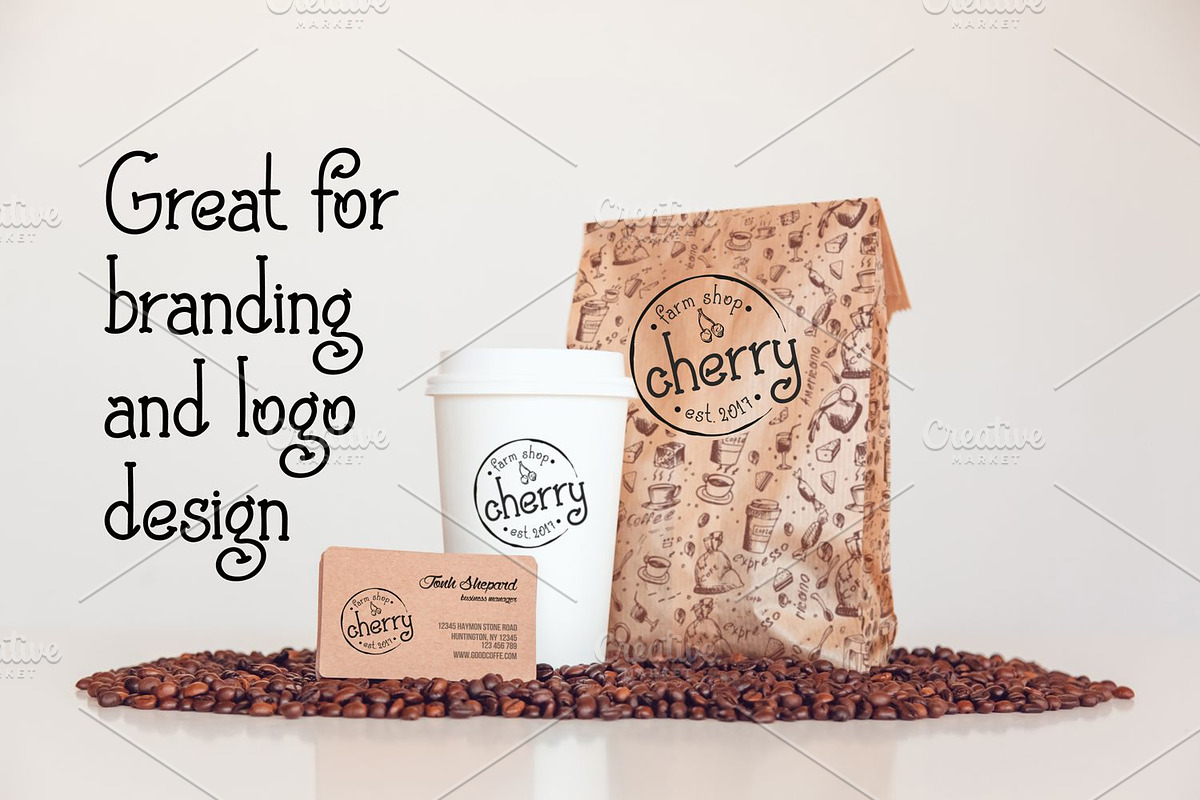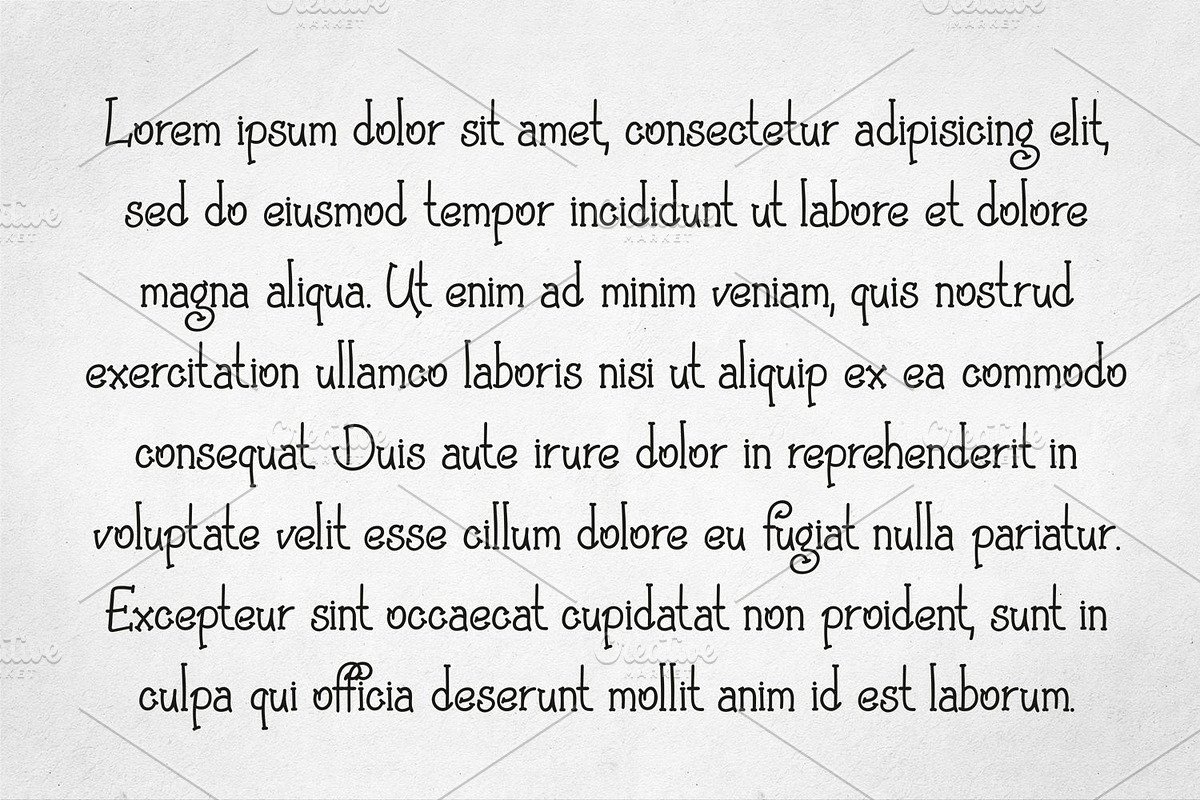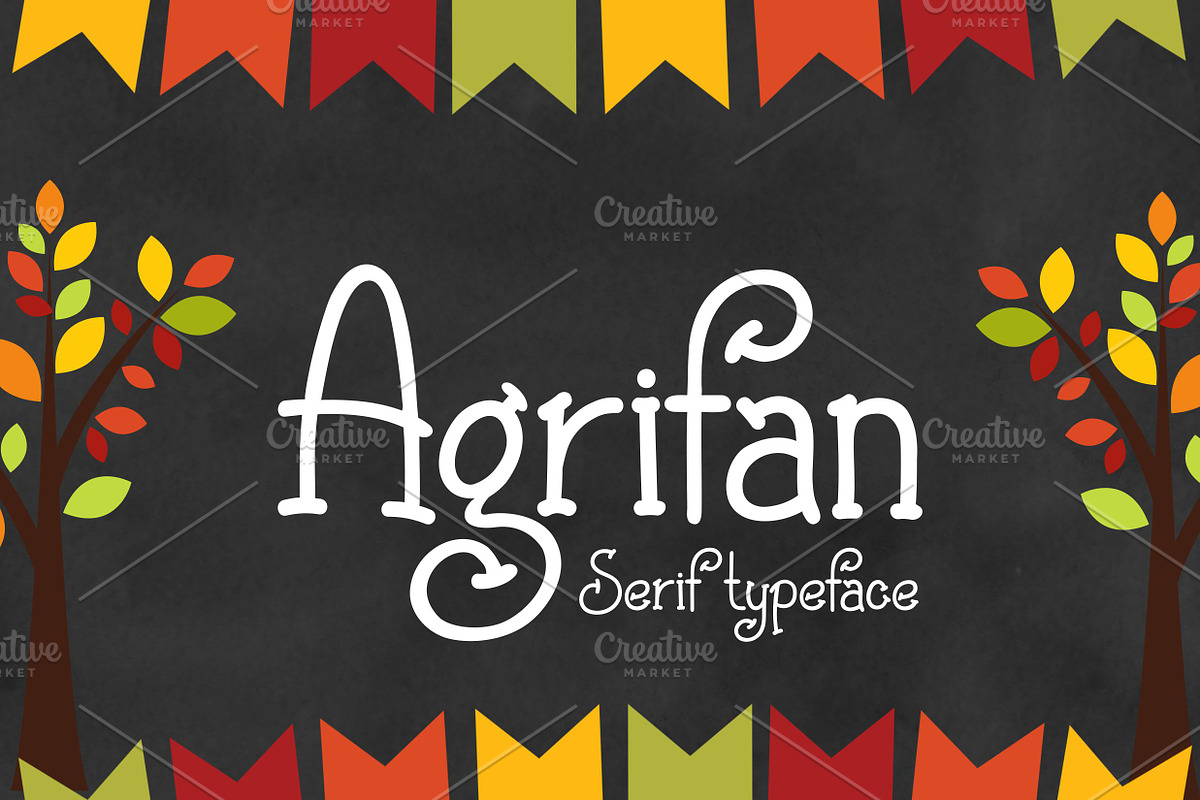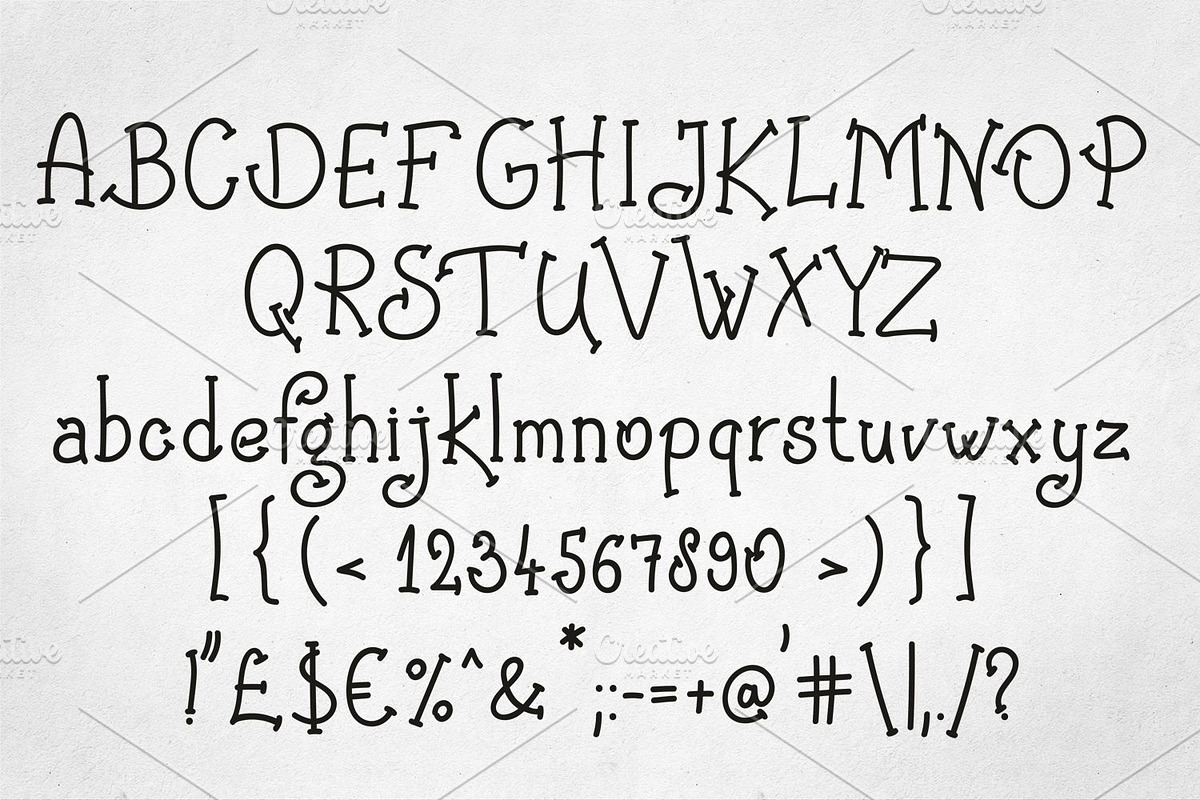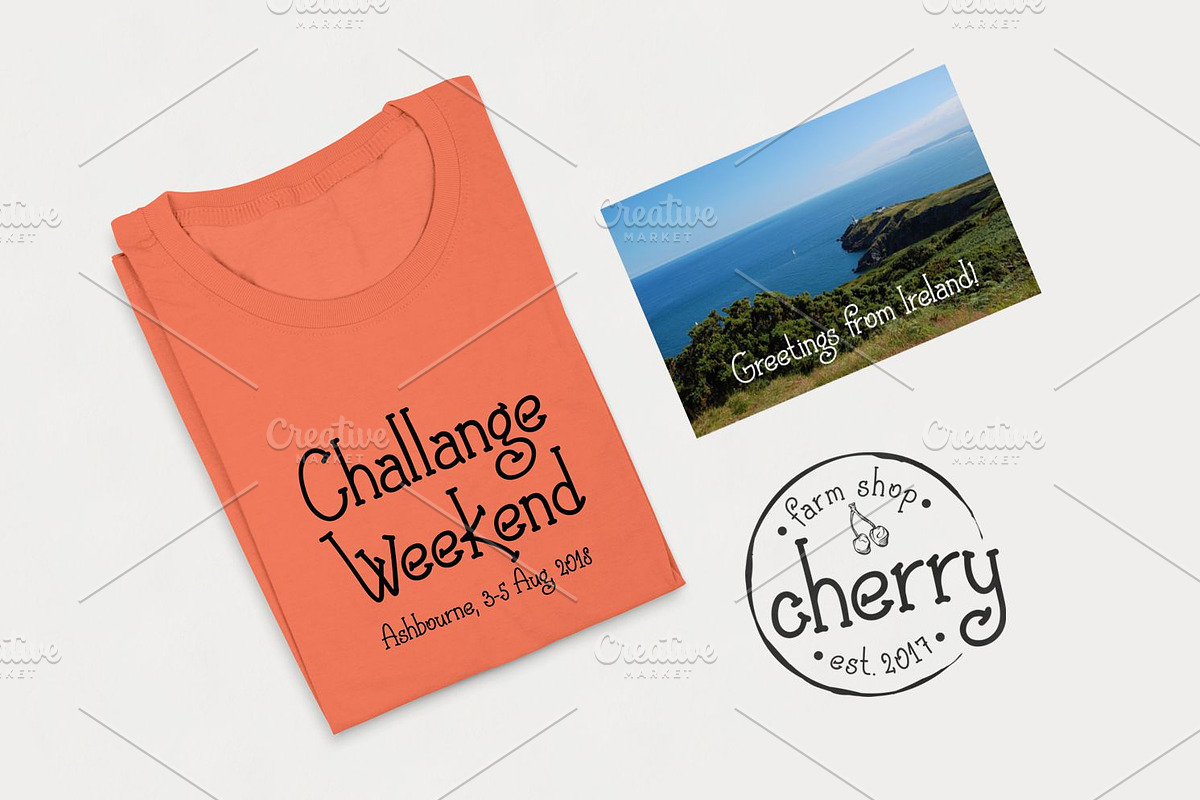
Agrifan
Introducing Agrifan handmade serif typeface. Great for logos, branding, posters, cards. Download and use across a huge range of programs such as Adobe, Corel, Silhouette, Cricut and many others!
Why Agrifan is worth a look
Agrifan by Digital Typeface Studio fits naturally into Branding, posters, packaging, typography.